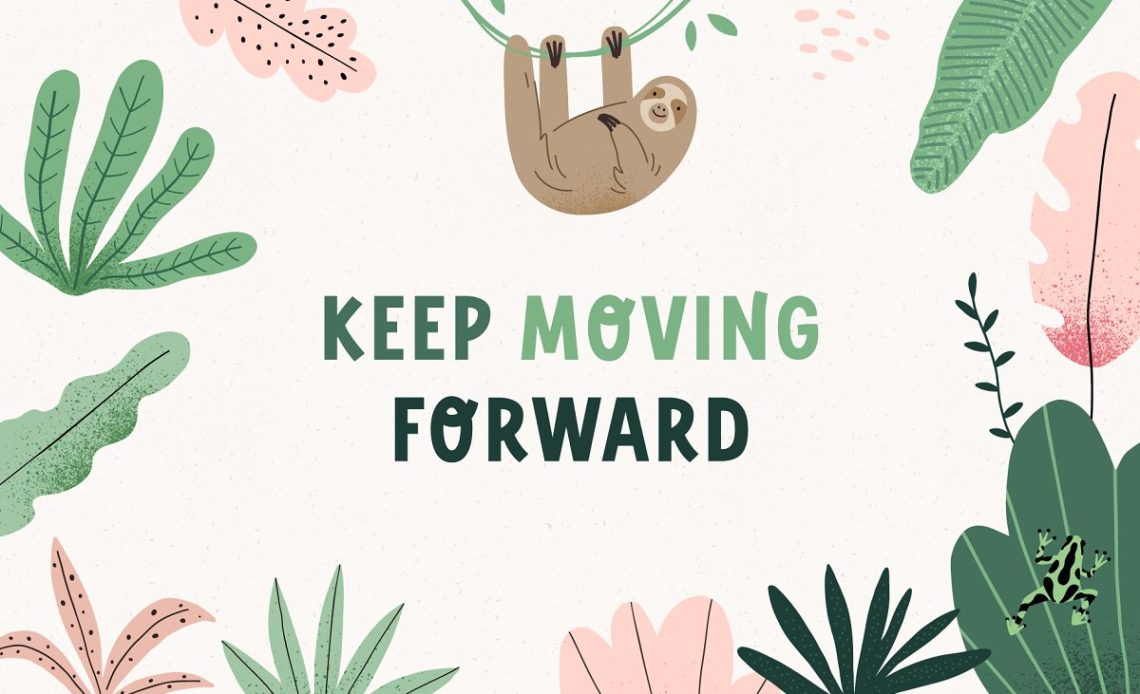
Introducing TROPICANA - the playful font that will make your creative CV stand out! Created by the talented Angelina Kovel, this font family is the perfect addition to your collection. With a super fun and bold typeface, TROPICANA is versatile and can be used for various projects.
This font is the ideal choice for headings, flyers, greeting cards, product packaging, book covers, printed quotes, logotypes, apparel design, album covers, and much more! The possibilities are endless.
Stand out from the crowd with TROPICANA. This playful font is the best choice for your creative CV, making it more eye-catching and memorable.